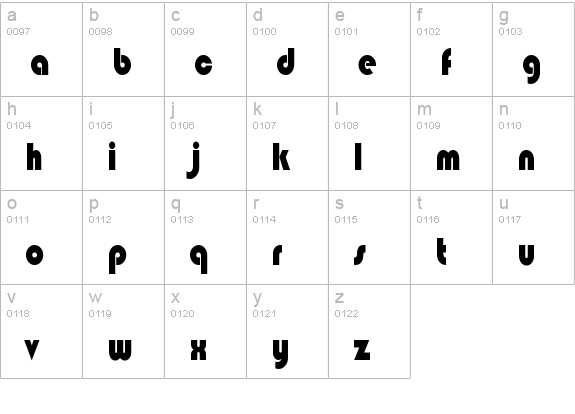
BlippoCnd-Heavy is a heavy, high-impact variant in the BlippoCnd typeface family \xE2\x80\x94 well suited to high-impact headlines, posters, and display advertising.
BlippoCnd-Heavy is a bold and eye-catching font that exudes a playful and retro charm. Its thick strokes and rounded edges make it perfect for headlines, posters, and branding projects that demand attention. The font's distinctive appearance adds a touch of fun and energy to any design, making it a versatile choice for a variety of creative projects. Best of all, BlippoCnd-Heavy is available for free download at FontsMarket.com. With its unique style and easy-to-read design, this font is sure to make a statement in your next project. Don't miss out on the opportunity to add this dynamic font to your collection today!